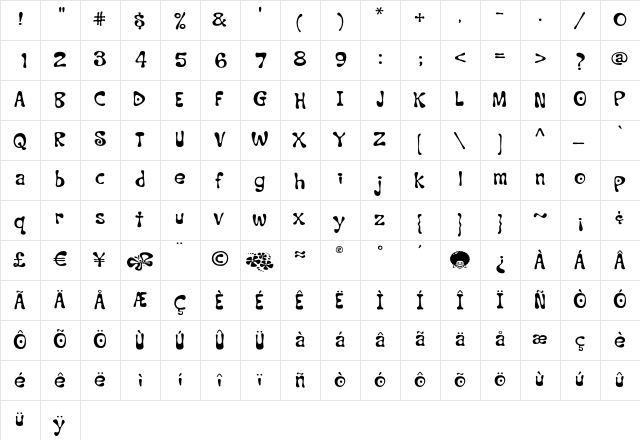
HavvaNiceDay Regular
Design Context for HavvaNiceDay Typeface
HavvaNiceDay is a composed and adaptable typeface that performs quietly and consistently across a wide range of design contexts.